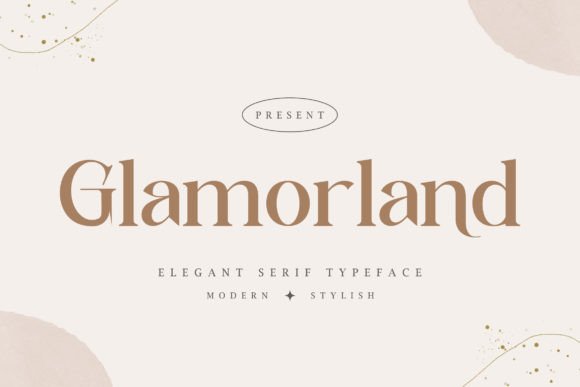
Step into the world of undeniable elegance and timeless beauty with the Glamorland Font, a serif masterpiece that captures the essence of sophistication. This font is the perfect choice for those seeking to elevate their designs with a touch of timeless charm.
With its graceful, elongated strokes, the Glamorland Font evokes a feeling of refined luxury making it the epitome of grace and elegance. Crafted with precision, each letterform exudes an air of sophistication, adding a touch of undeniable charm to your creations.
Imagine your wedding invitations adorned with the Glamorland Font, their beauty radiating through each delicate letter. The font's delicate serifs and elegant curves will transform your invitations into a masterpiece of artistry. Your guests will be mesmerized by the beauty of the font, setting the tone for a truly magical occasion.
The Glamorland Font is more than just a font; it's an extension of your creativity. Whether you're creating logos, business cards, or marketing materials, this font adds a touch of class and sophistication. Its versatility extends to editorial design, book covers, and other creative projects, making it the perfect choice for those seeking to create a lasting impact.
So, let the Glamorland Font lead you into a realm of elegance and glamour. Its refined aesthetics and undeniable charm will transform your designs, leaving a lasting impression on all who behold them. Embrace the beauty of Glamorland today and unlock the potential for truly captivating creations.